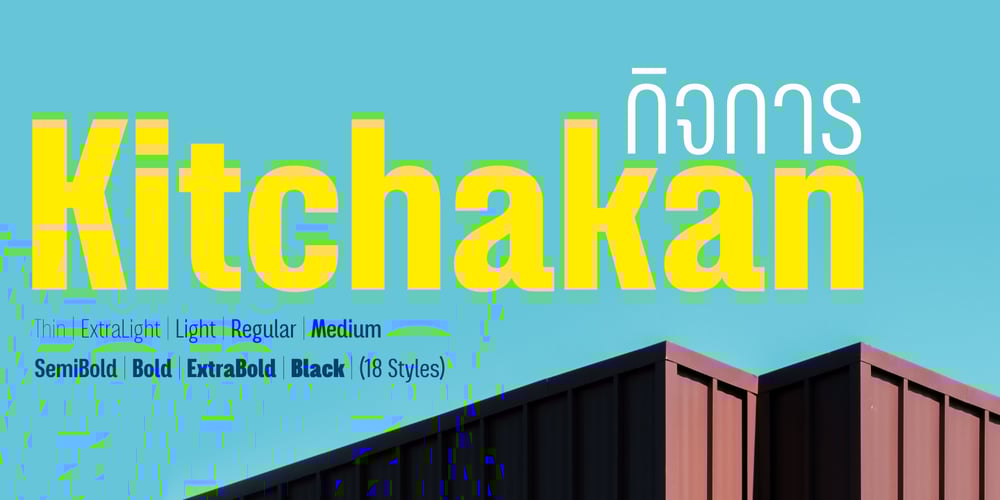
Kitchakan
Kitchakan font
Kitchakan Font Family was designed by Anupap Jaichumnan and published by Jipatype. Kitchakan contains 18 styles and family package options. The Kitchakan font is a sleek and modern condensed sans-serif typeface designed to support both the Thai language and Latin-1 characters. This versatile font family boasts an impressive range of 18 different styles, catering to various design needs and aesthetic preferences.